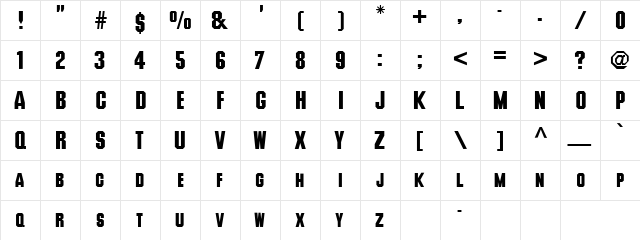
Humiston Regular
Design Context for Humiston Typeface
Humiston is a composed and adaptable typeface that performs quietly and consistently across a wide range of design contexts.